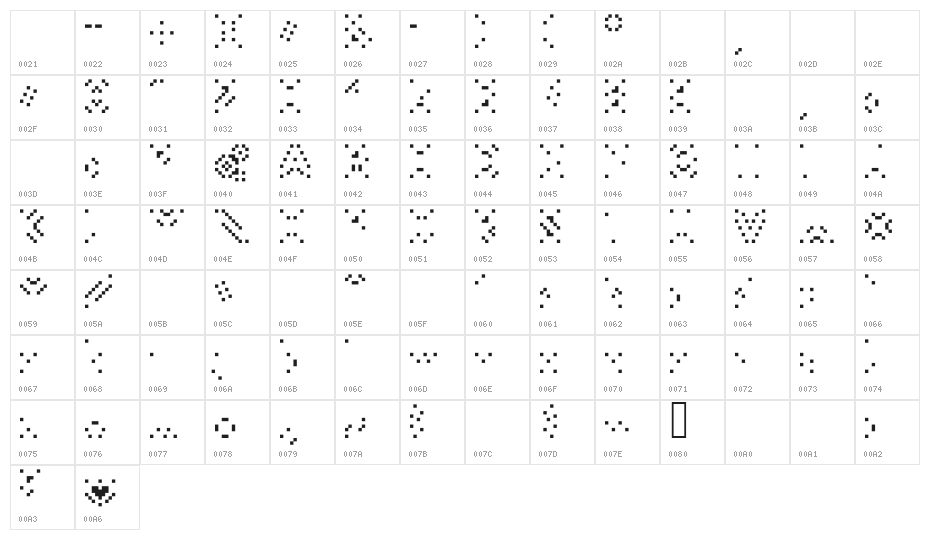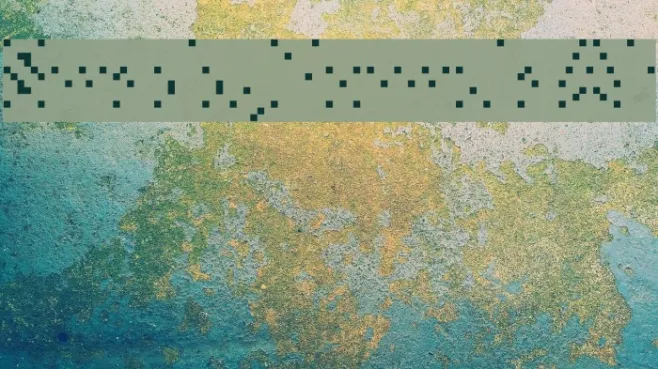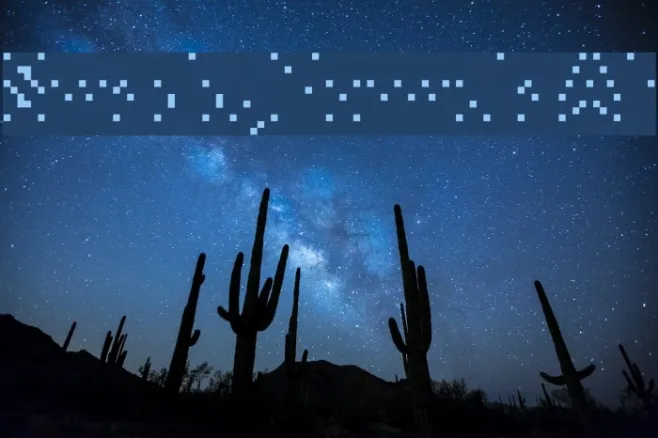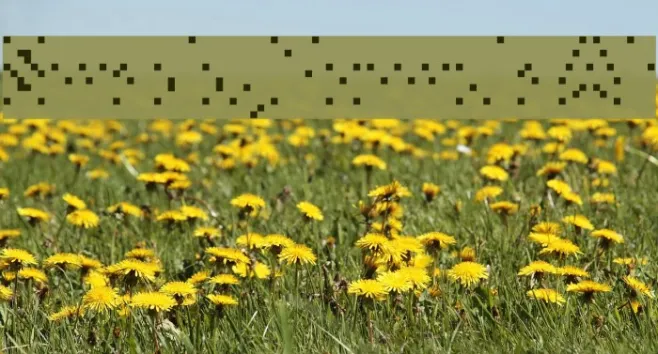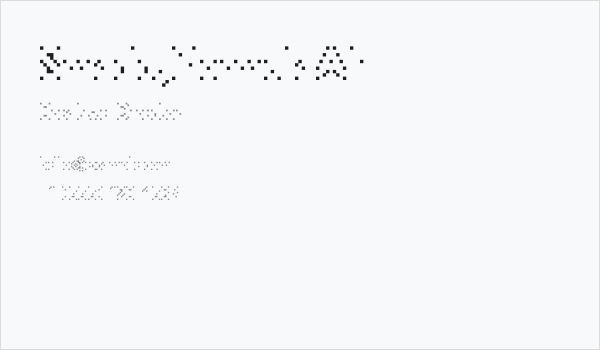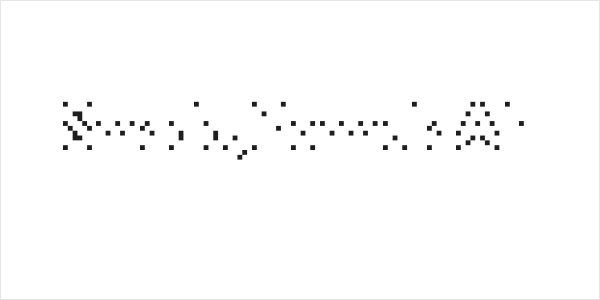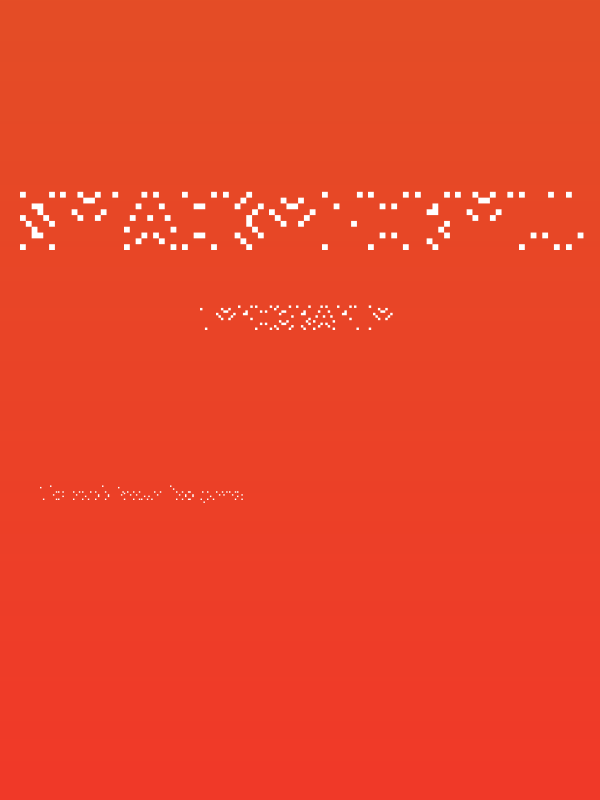
SmackyFormulaAli Font
SmackyFormulaAli Description
This font features a unique pixelated design, reminiscent of early digital displays and retro video games. Each character is constructed from a grid of small squares, giving it a distinctly blocky and geometric appearance. The uppercase and lowercase letters maintain a consistent height, while the numerals and special characters are crafted with the same pixelated style, ensuring uniformity across the set. The font's simplicity and clarity make it suitable for digital-themed projects, while its nostalgic feel can evoke a sense of vintage computing. The spacing between characters is tight, enhancing its compact look.
| Use Case | Logos, Digital displays, Retro-themed projects |
| Proposed Projects | Ideal for retro video game designs, digital art projects, and tech-themed branding. |